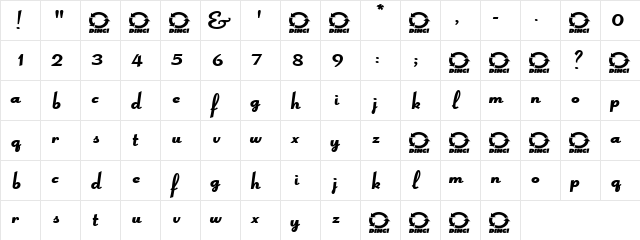
MrsMean Regular Font Preview
MrsMean Regular
Design Context for MrsMean Typeface
MrsMean is a composed and adaptable typeface that performs quietly and consistently across a wide range of design contexts.